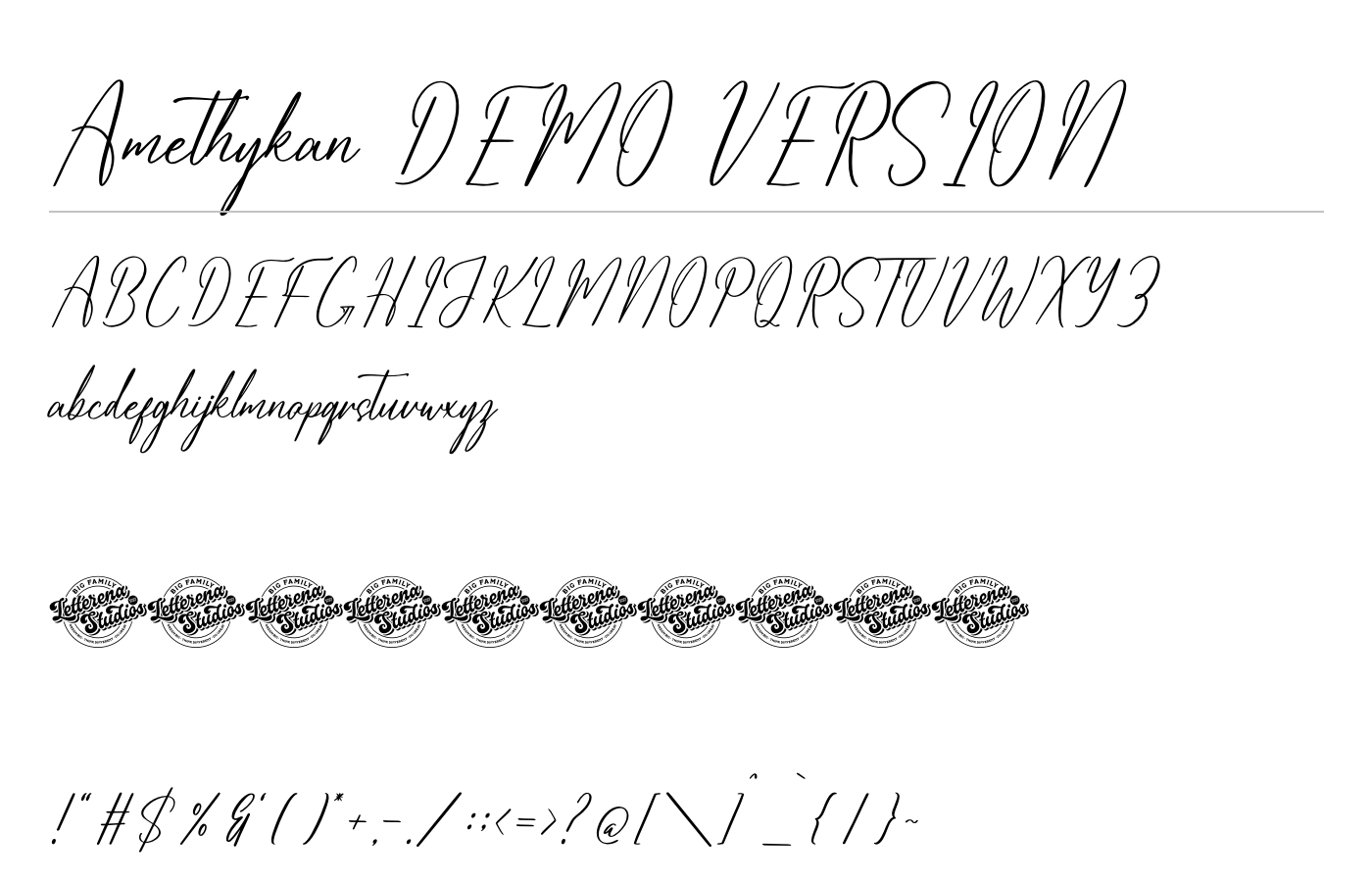
Amethykan DEMO VERSION is a graceful, thin script font with elegant, flowing letterforms that combine a handwritten, calligraphic style with a modern flair. Its light weight and tall, narrow proportions give it a delicate, refined appearance, making it ideal for sophisticated branding, invitations, and stylish headlines where a touch of elegance and personality is desired. This font works best in decorative contexts where a sense of charm and finesse can enhance the design without overwhelming the message.
Amethykan DEMO VERSION Font
About Amethykan DEMO VERSION Font
| Font family | Amethykan DEMO VERSION Font |